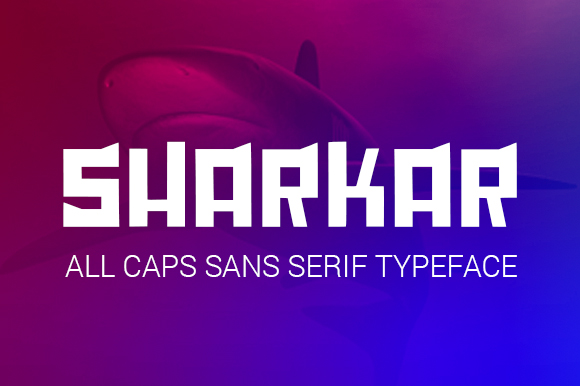
Step into the vast blue yonder, where Sharkar Font reigns supreme. This bold sans serif font is no ordinary typeface; it's a reflection of nature's most formidable predator, the great white shark. Its sharp angles and commanding presence evoke a sense of authority and power, making it the perfect choice for headlines, logos, and any design that demands attention.
Crafted with the precision of a master designer, Sharkar Font is a testament to the fusion of art and science. Its clean, modern lines exude a timeless elegance, while its subtle curves hint at a hidden depth. Like the shark it's inspired by, this font is both sleek and captivating, drawing the eye in and refusing to let go.
Whether you're a seasoned designer or a budding entrepreneur, Sharkar Font is the ultimate weapon in your creative arsenal. Its versatility knows no bounds, lending itself seamlessly to a myriad of projects. Envision your website headlines leaping off the screen, your social media posts commanding attention, and your branding materials leaving an unforgettable mark.
But Sharkar Font is more than just a marketing tool; it's a statement of intent. It's a font that empowers you to make a bold impression, to stand out from the crowd, and to leave a lasting impact. When you choose Sharkar Font, you're choosing to embrace your inner predator, to unleash your creativity, and to take your designs to uncharted depths.
So why settle for ordinary fonts when you can dive into the extraordinary? Embrace the power of Sharkar Font and watch your designs transform from mundane to magnificent. The vast ocean of creativity awaits; it's time to set sail with the font that will make your creations unforgettable.